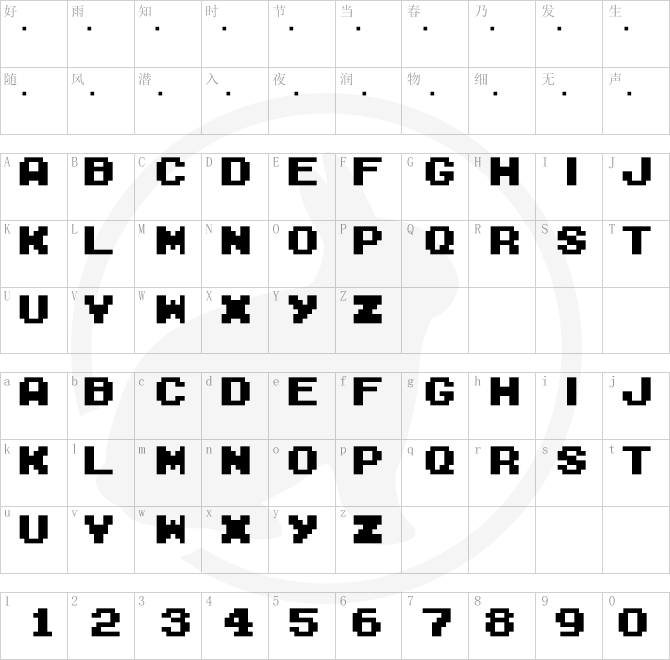
- Font Name:M04_FATAL FURY BLACK
M04_FATAL-FURY-BLACK.ttf is a very beautiful artistic font, M04_FATAL-FURY-BLACK.ttf is widely used in the design and printing of various books and pictures,M04_FATAL-FURY-BLACK.ttf has a strong visual impact,M04_FATAL-FURY-BLACK.ttf is a commonly used font in newspapers, magazines and books, and is used in posters, e-commerce Poster design, store design, logo design, font design and other fields.M04_FATAL-FURY-BLACK.